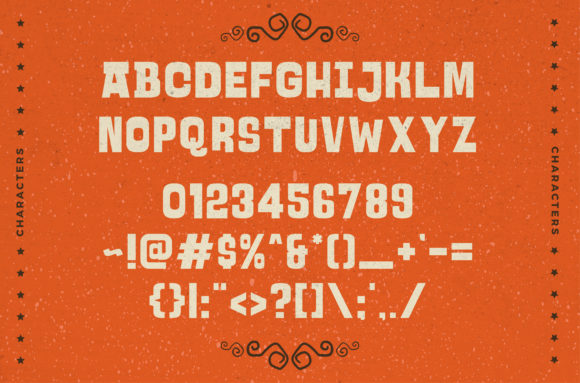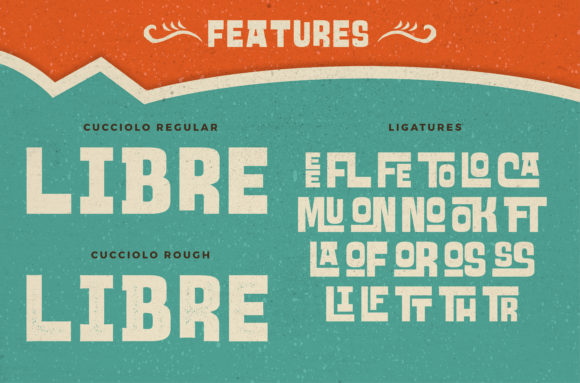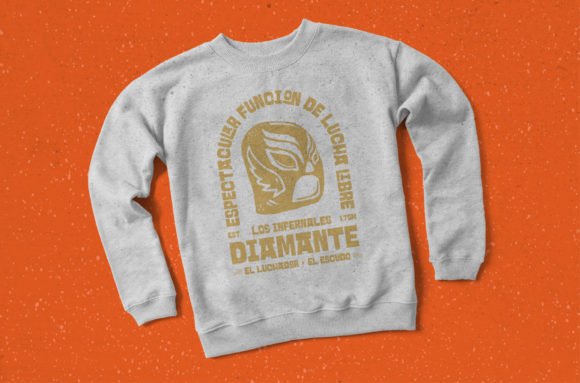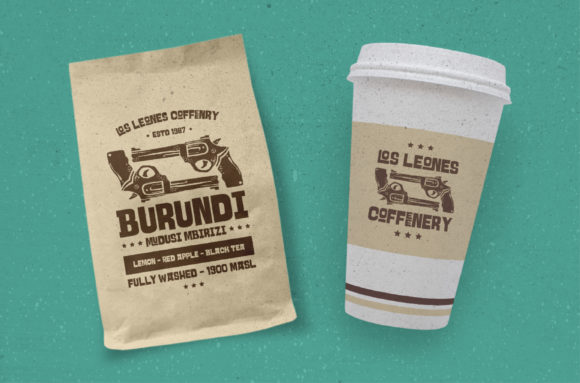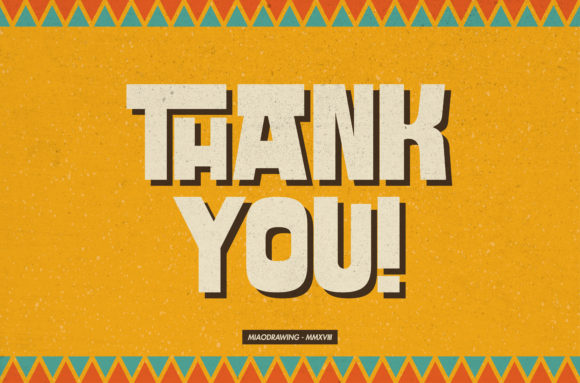
Introducing Cucciolo Font: A Vibrant and Playful Display Font Inspired by Mexican Culture
Are you looking for a font that can add a touch of excitement and playfulness to your design projects? Look no further than Cucciolo Font! Inspired by the rich and vibrant culture of Mexico, Cucciolo is a beautiful display font that can turn any design project into a true standout. In this article, we’ll take a closer look at Cucciolo Font, its features, and how you can use it to elevate your designs.
What is Cucciolo Font?
Cucciolo Font is a modern display font that draws inspiration from the colorful and lively culture of Mexico. The font is designed to be bold, playful, and eye-catching, making it perfect for use in a variety of design projects, from posters and flyers to logos and branding materials. With its unique and quirky style, Cucciolo Font is sure to grab attention and leave a lasting impression.
Features of Cucciolo Font
So, what makes Cucciolo Font so special? Here are just a few of its key features:
- Unique and playful design: Cucciolo Font features a one-of-a-kind design that is both fun and playful. Its bold lines and curvaceous shapes make it perfect for use in designs that require a bit of personality.
- Inspired by Mexican culture: The font’s design is inspired by the rich and vibrant culture of Mexico, making it perfect for use in designs that require a touch of Latin flair.
- High-quality and versatile: Cucciolo Font is a high-quality font that can be used in a variety of design projects, from print materials to digital designs.
How to Use Cucciolo Font in Your Designs
Cucciolo Font is a versatile font that can be used in a variety of design projects. Here are just a few ideas to get you started:
- Posters and flyers: Use Cucciolo Font to create eye-catching posters and flyers that grab attention and leave a lasting impression.
- Logos and branding materials: Cucciolo Font is perfect for use in logos and branding materials, such as business cards, letterheads, and packaging.
- Digital designs: Use Cucciolo Font in digital designs, such as social media graphics, website headers, and email newsletters.
Tips for Getting the Most Out of Cucciolo Font
Here are a few tips for getting the most out of Cucciolo Font:
- Use it sparingly: While Cucciolo Font is a beautiful font, it can be overwhelming if used too much. Use it sparingly to add emphasis and create visual interest.
- Pair it with other fonts: Cucciolo Font pairs well with other fonts, such as sans-serif fonts and script fonts. Experiment with different pairings to find the one that works best for your design.
- Experiment with colors: Cucciolo Font looks great in a variety of colors, from bold and bright to soft and pastel. Experiment with different colors to find the one that works best for your design.